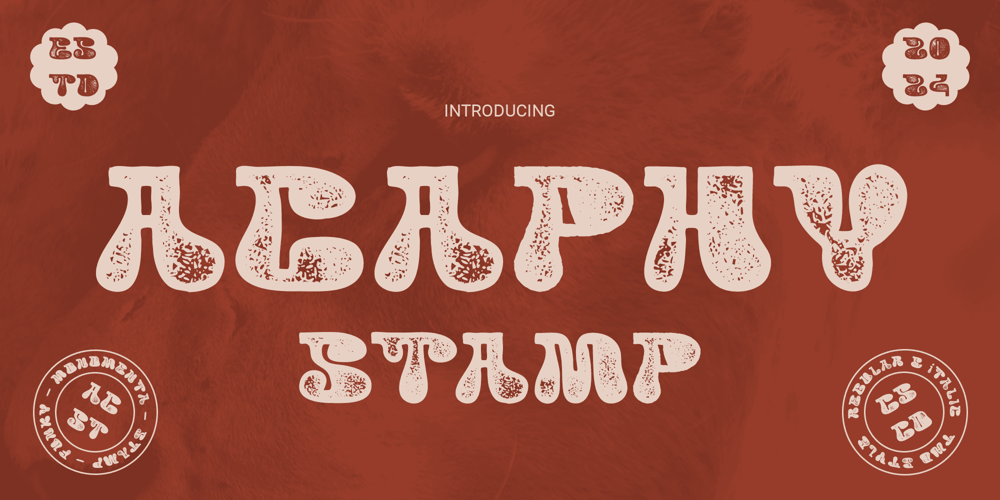
Acaphy Stamp Font Family was designed by Trio Nazzar Saputra, Wahyu Hadi Yuana and published by Craft Supply Co. Acaphy Stamp contains 2 styles and family package options. Acaphy Stamp: Vintage Balloon VibesBubble-inspired DesignAcaphy Stamp features a playful bubble-inspired design, drawing inspiration from the whimsical shape of balloons. Each character exudes a sense of lightness and joy.Stamp EffectThe font is enhanced with a stamp effect, adding a vintage charm that sets it apart. This effect gives the display font a weathered appearance, reminiscent of old-fashioned letterpress printing.Perfect for DisplayWith its bubbly design and stamp effect, This font is ideal for display purposes. It adds a touch of nostalgia and whimsy to headlines, signage, and other prominent elements.Versatile ApplicationDespite its vintage vibes, This font is versatile in its application. From branding and packaging to social media graphics and invitations, it brings a fun and playful element to any design project.Whimsical Charm with Vintage AppealThis font captures the playful spirit of balloons with its bubbly design and vintage stamp effect. Whether used for display or subtle accents, This font brings a sense of joy and nostalgia to any design endeavor